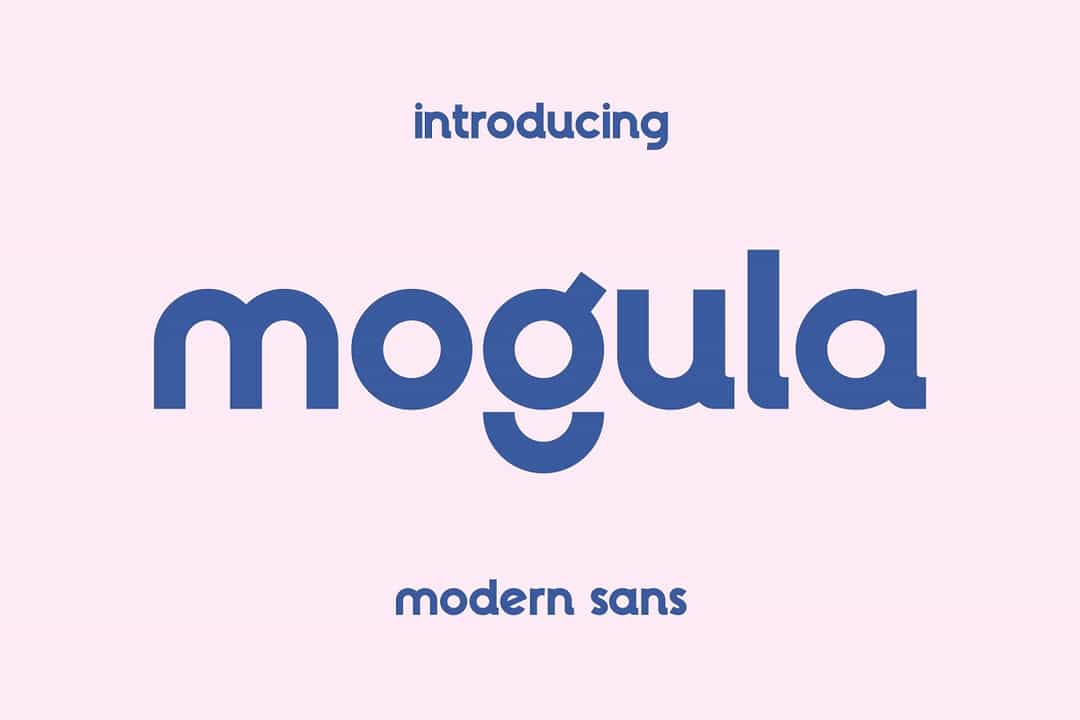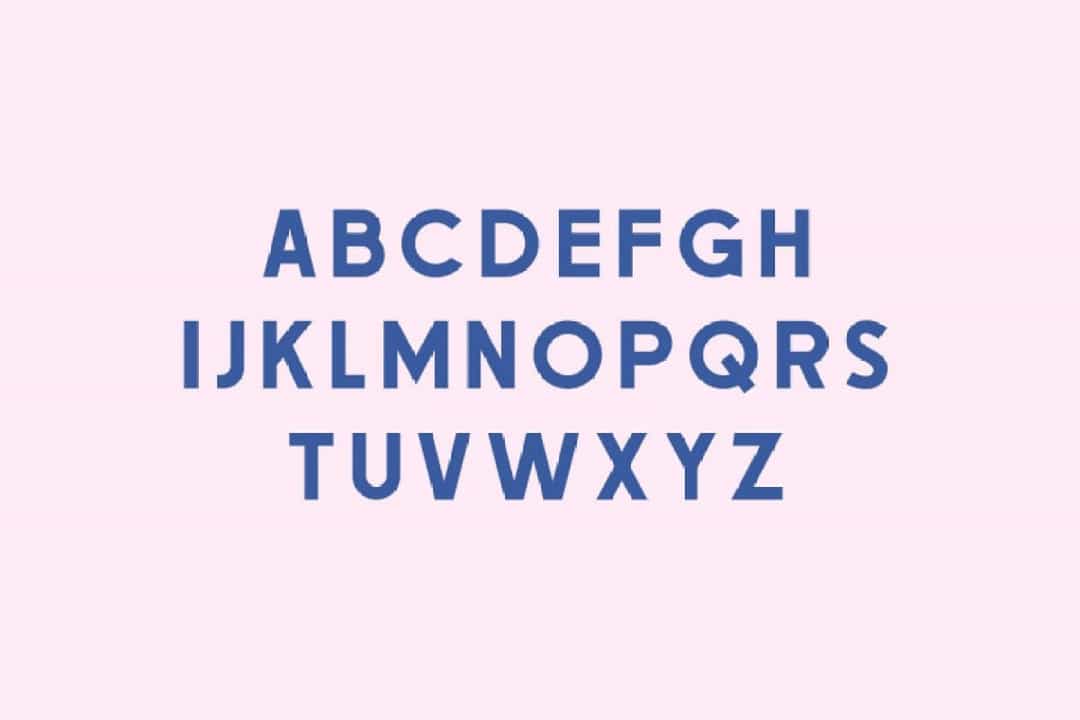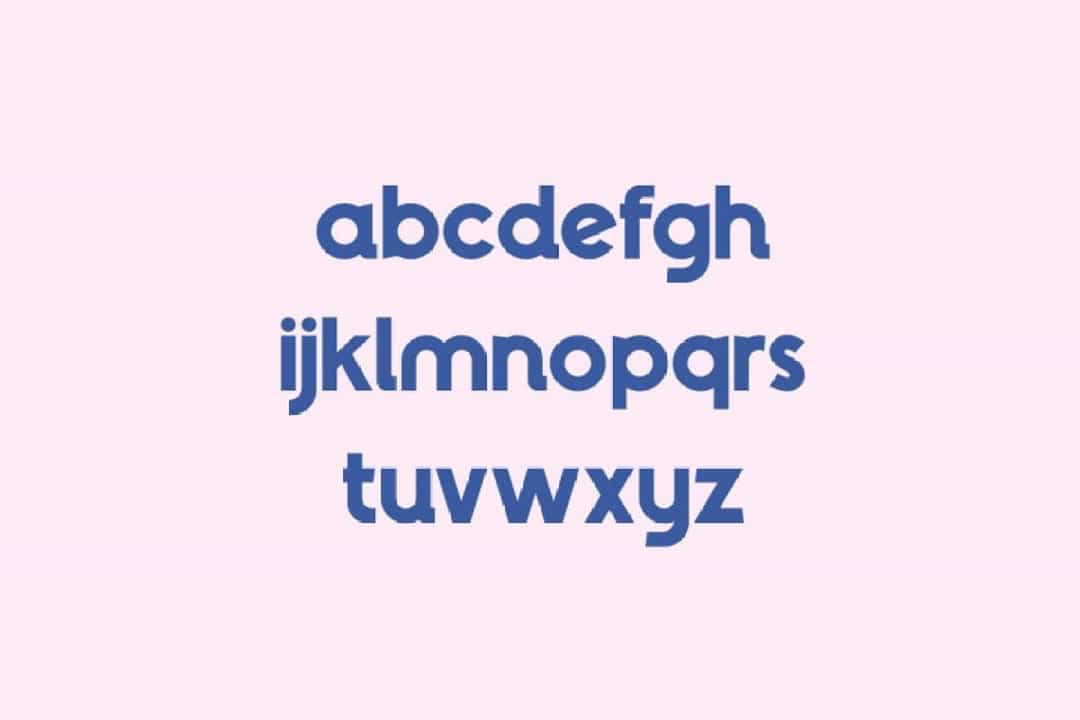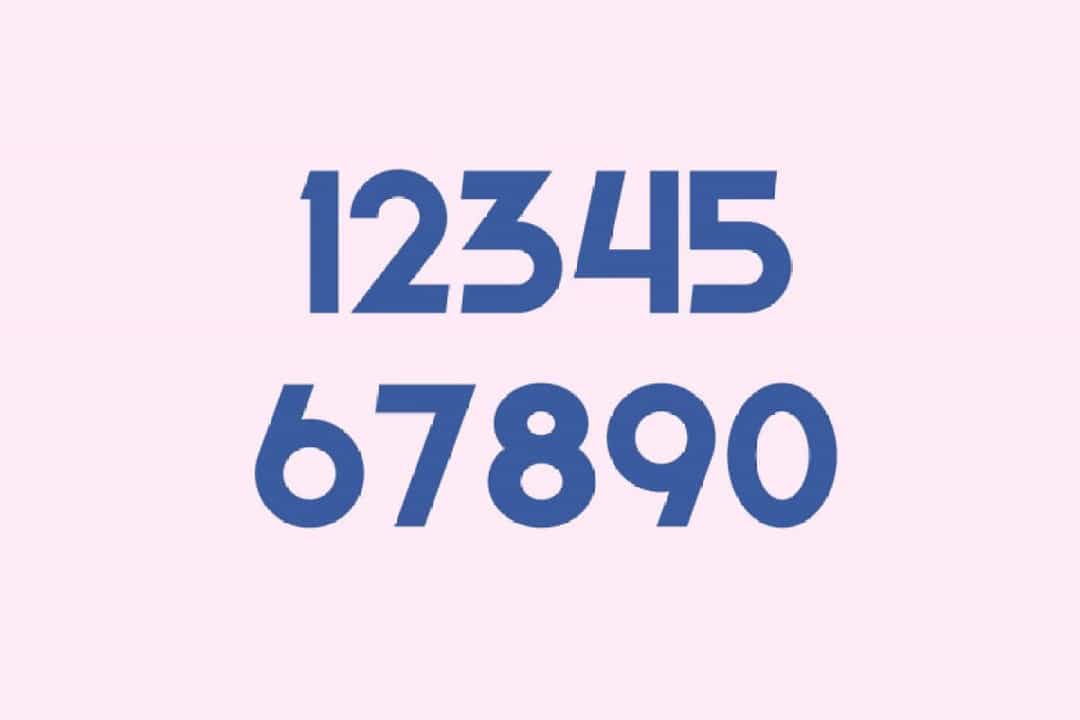
Mogula is an elegant, timeless font with distinct style and contemporary appeal that can make an excellent logo, movie/book title design, fashion magazines or branding letters for clothing quotes, among other purposes.